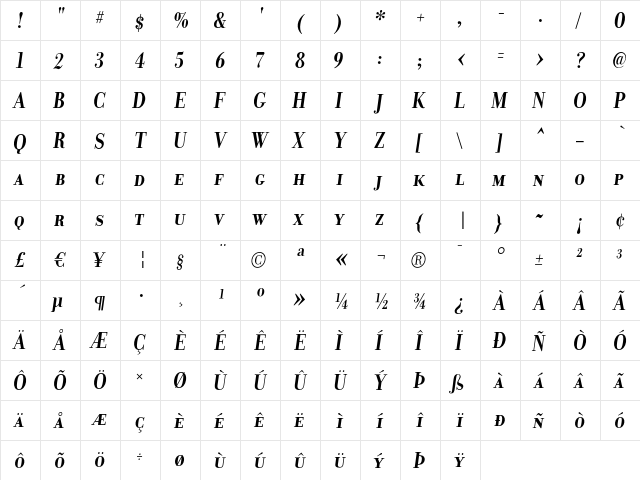
DonatoraDisplaySC BoldItalic
Design Context for DonatoraDisplaySC Typeface
DonatoraDisplaySC is built around its visual character rather than neutral utility — its distinctive forms are designed to make an impression at display sizes. The slanted form adds forward momentum and visual energy. The heavy weight commands attention and anchors typographic hierarchies.
Font Pairing: Pair with a clean neutral sans-serif for body copy to let DonatoraDisplaySC's character lead without overwhelming the composition.
Pro Tip: Treat DonatoraDisplaySC as the centrepiece of your typographic hierarchy. One strong heading set in a decorative face can carry an entire layout.